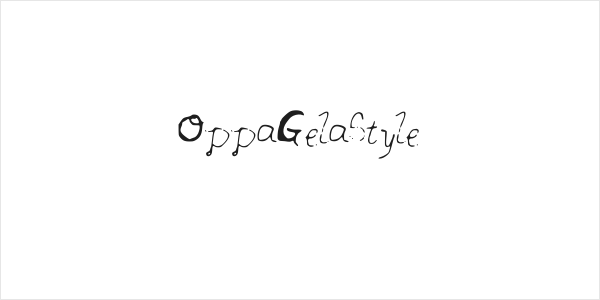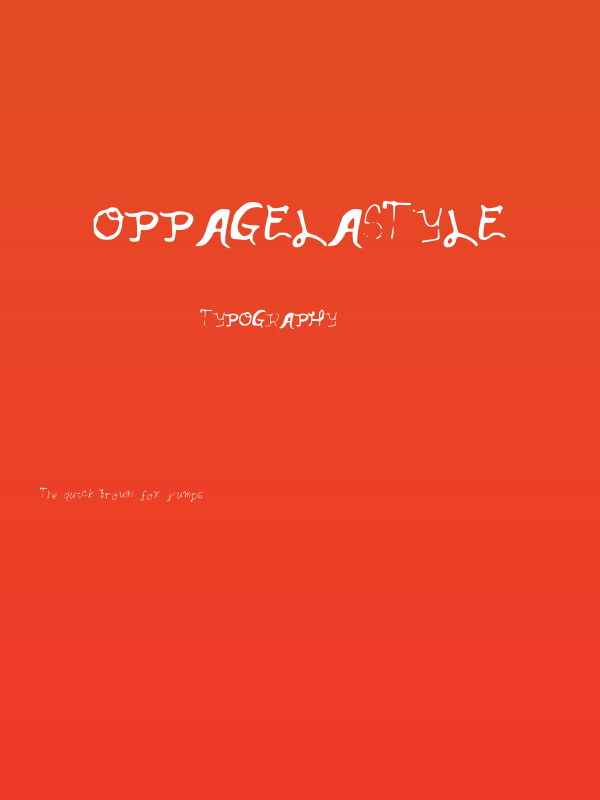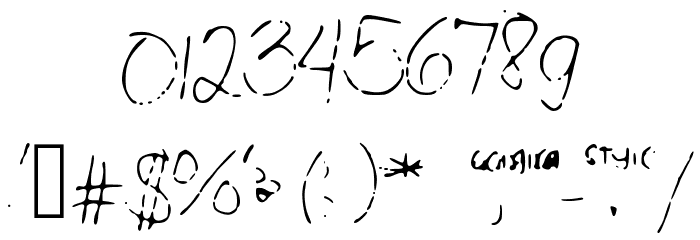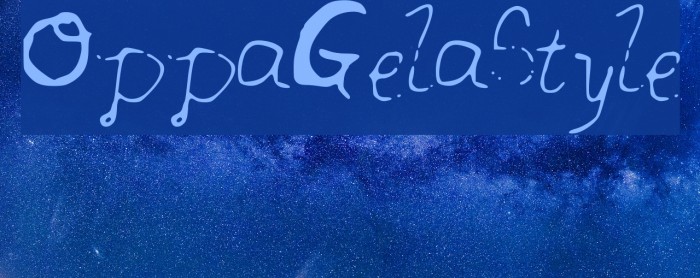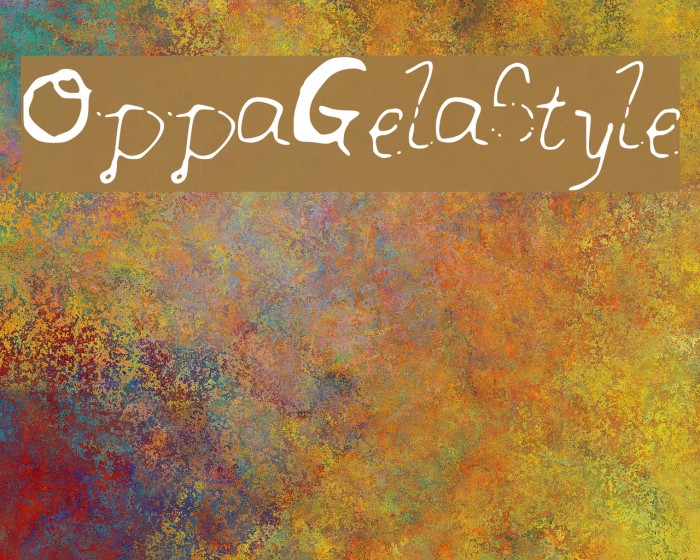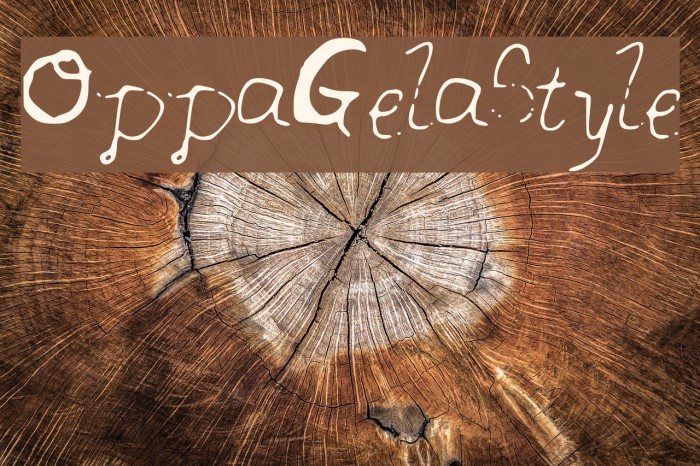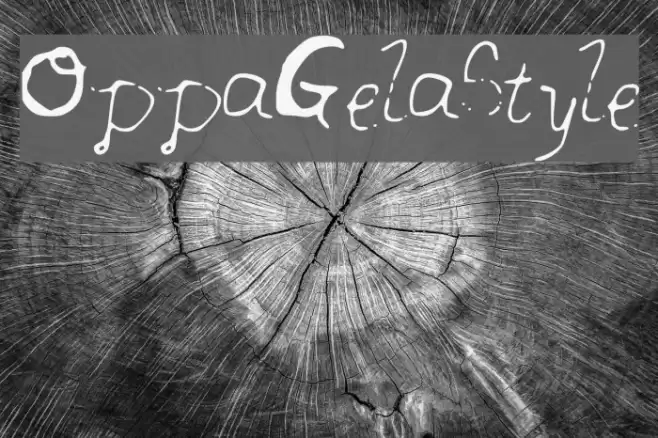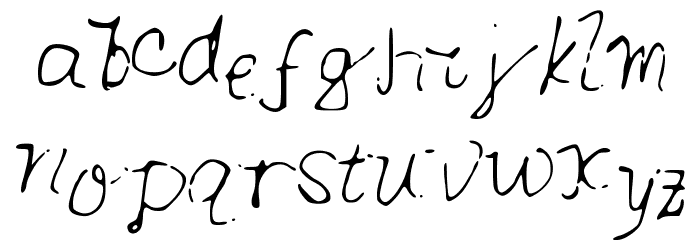
OppaGelaStyle Font
| Общий стиль | Artistic and Casual |
| Область применения | Headlines, Logos, Creative Projects |
| Рекомендуемые проекты | Ideal for creative projects such as posters, invitations, and branding materials where a casual yet sophisticated look is desired. |